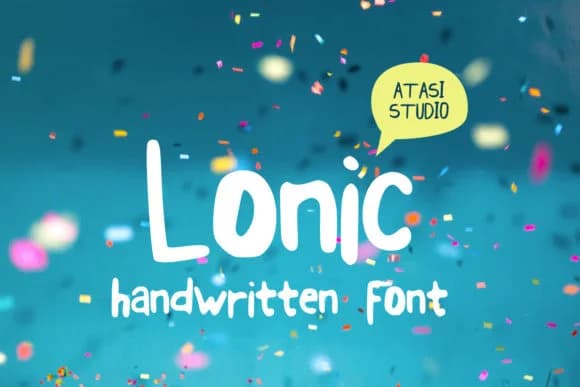
Lonic Font by atasistudio is a casual handwritten script that combines contemporary style with approachable warmth. The informal letterforms deliver authentic character without compromising legibility, making it an excellent choice for designers who want to infuse genuine personality into their typography while maintaining professional readability standards.
This versatile typeface excels in personal stationery applications, where its relaxed aesthetic perfectly complements wedding invitation suites and save-the-date cards that need to feel intimate and memorable. Small business owners and makers find Lonic invaluable for designing custom product labels that stand out on platforms like Etsy, giving handmade goods a distinctive voice. Craft enthusiasts love using it for DIY wooden signs and personalized merchandise at local markets, while digital designers employ it for engaging social media graphics that capture attention in crowded feeds. The playful nature of the letterforms makes it particularly suited for custom t-shirt designs and personalized branding projects.
Lonic Font is a script font that shines as a display or heading face. Pair it with a clean sans-serif or serif font for body text β the contrast creates a clear hierarchy while the two styles stay balanced and easy to read.